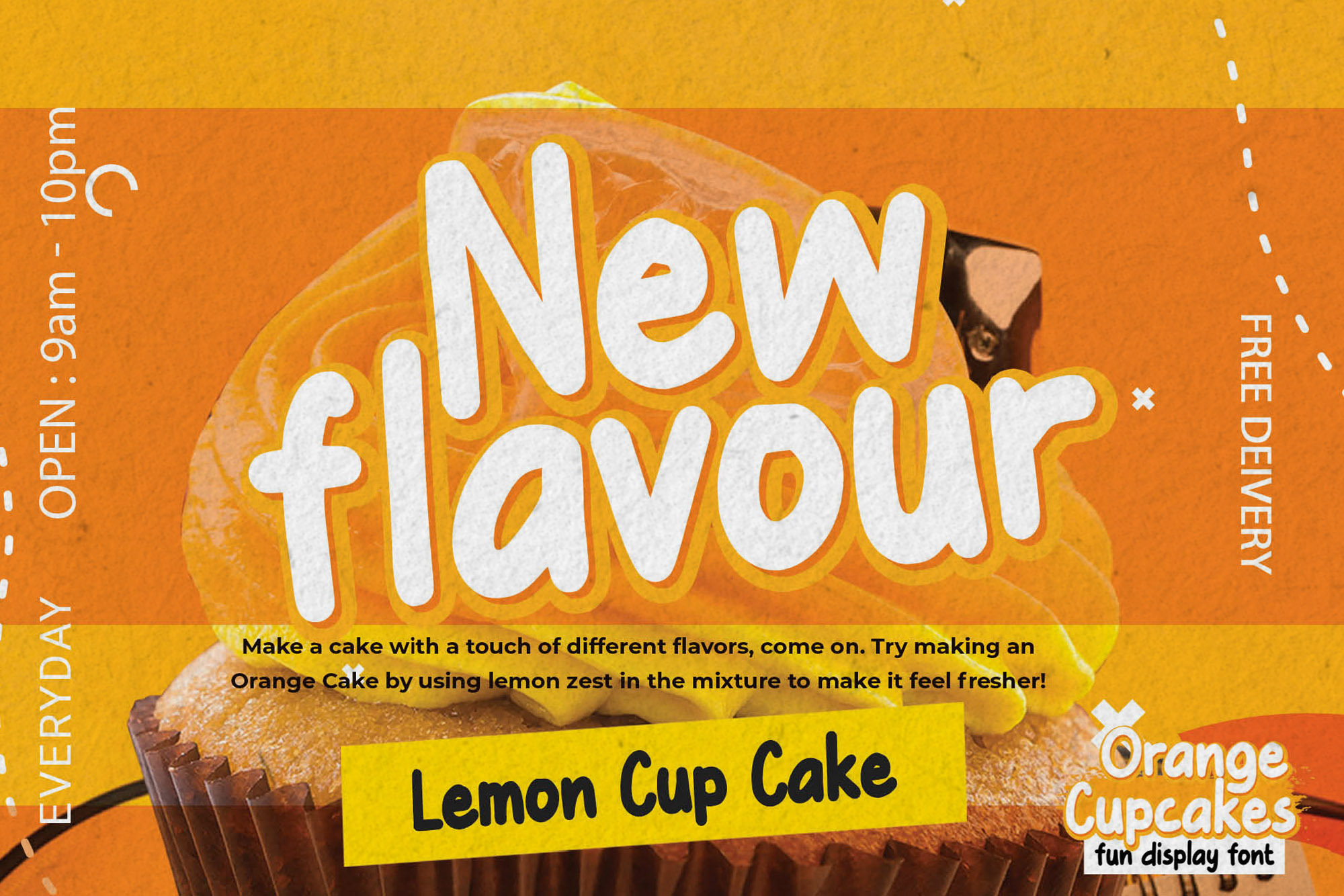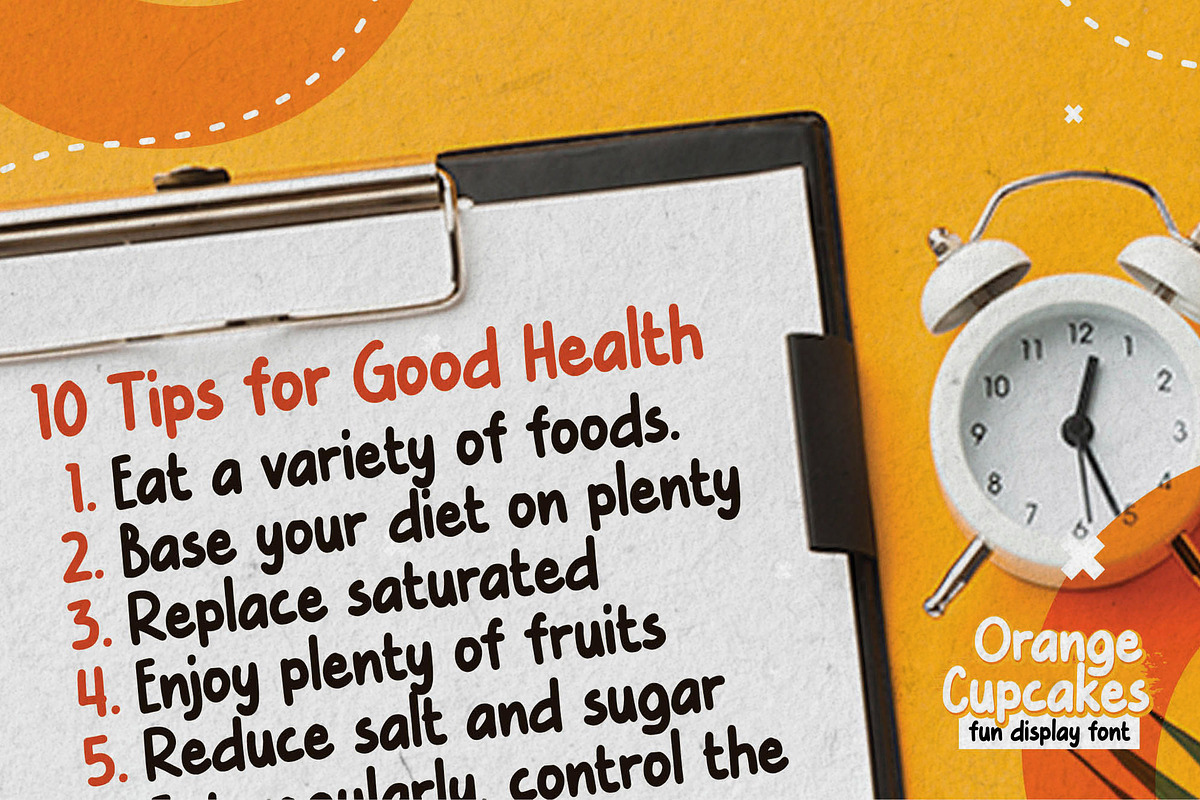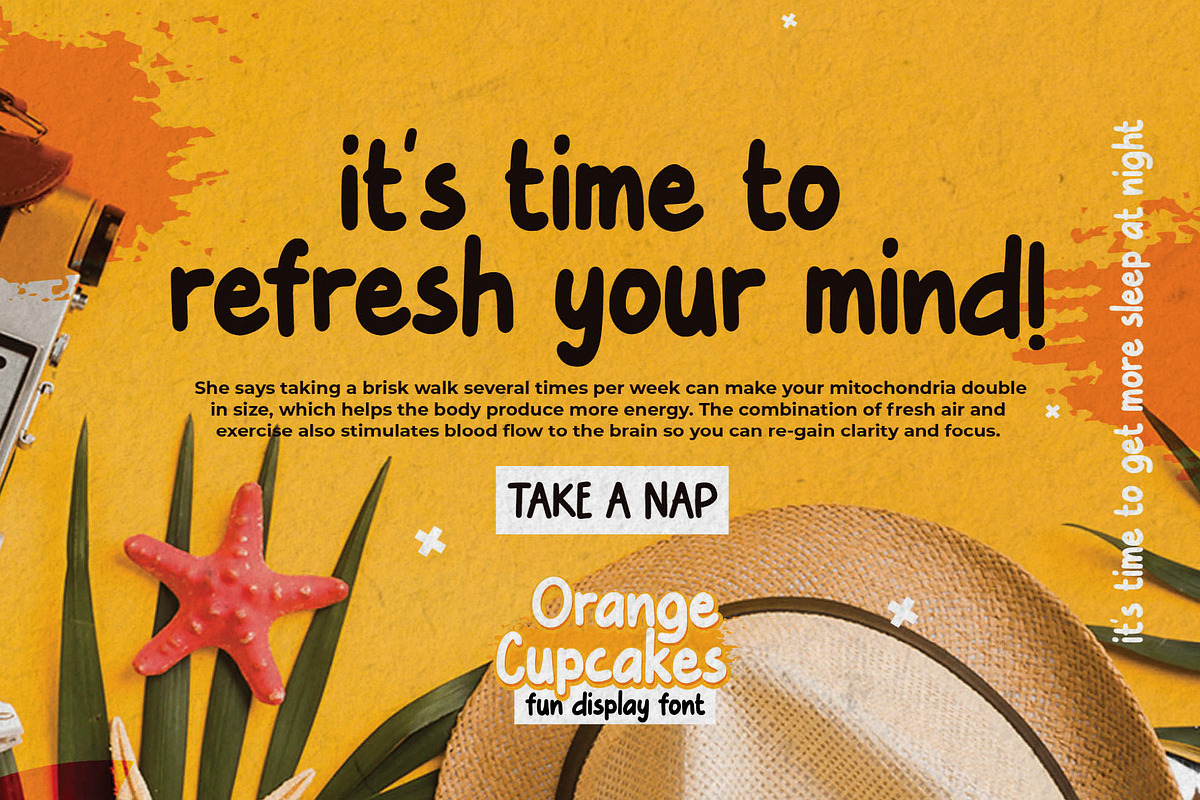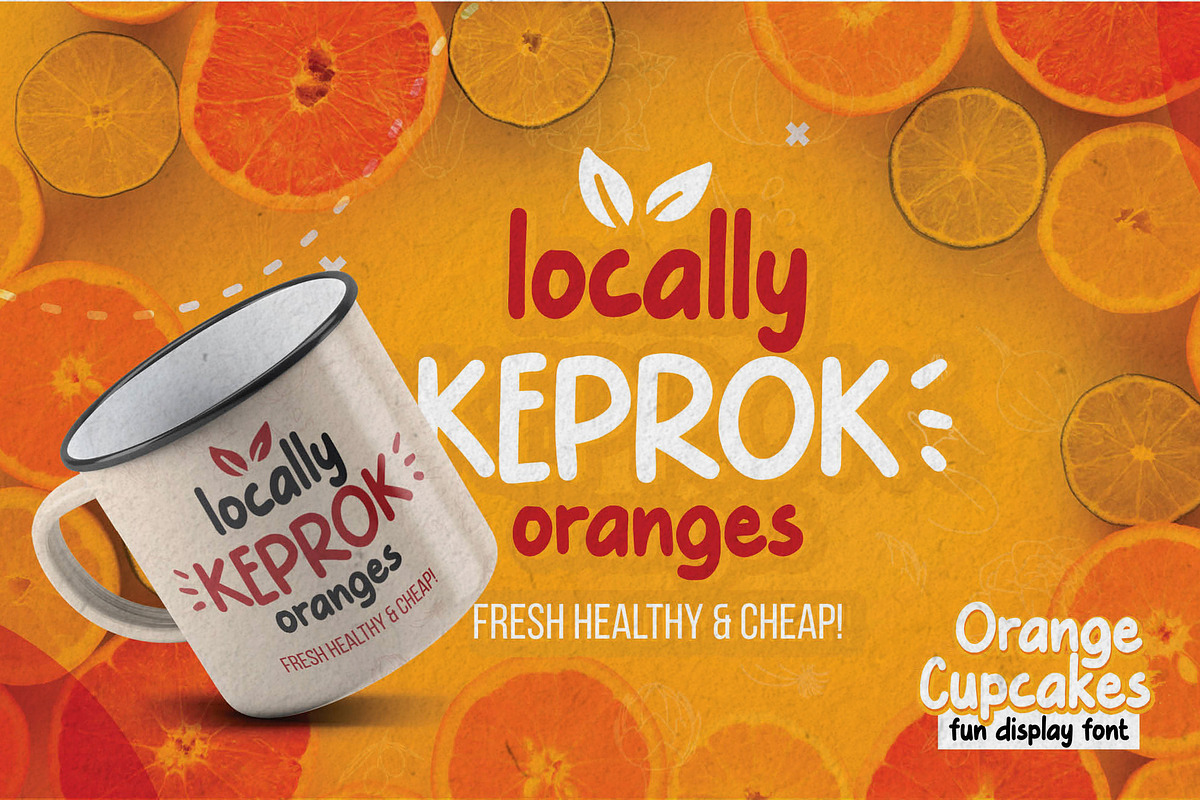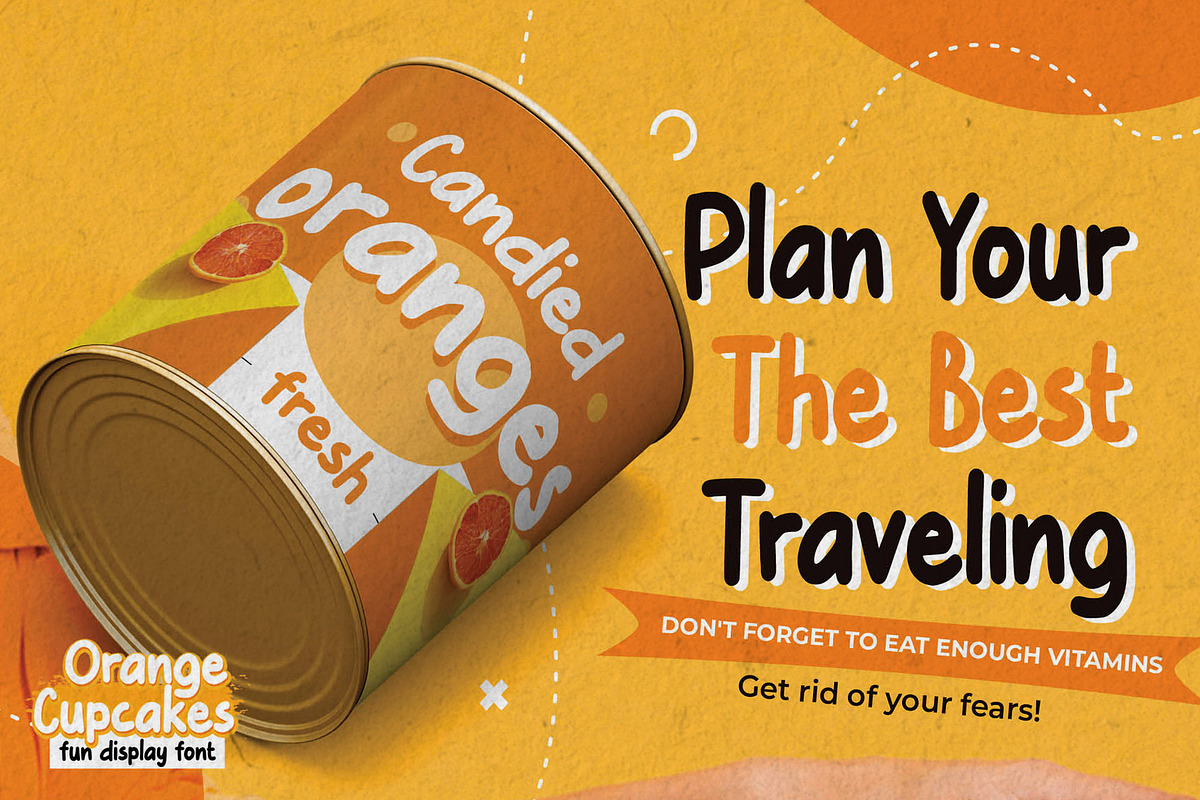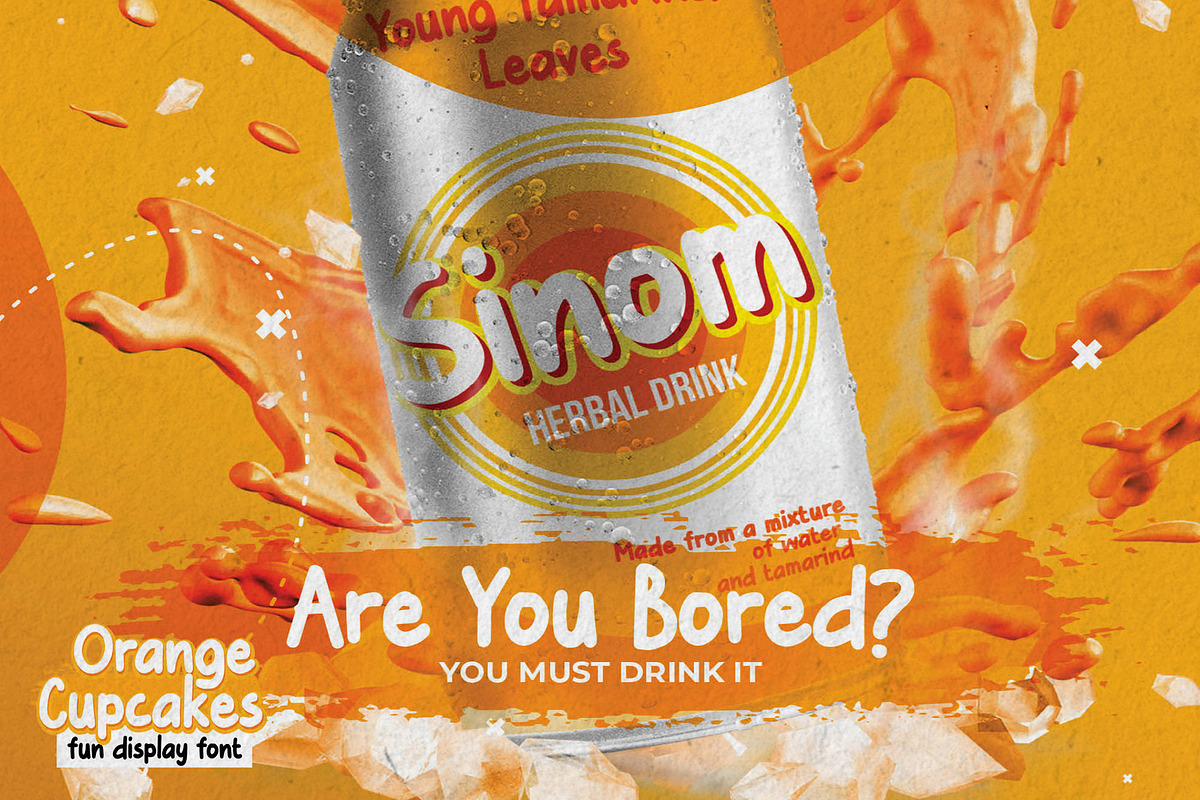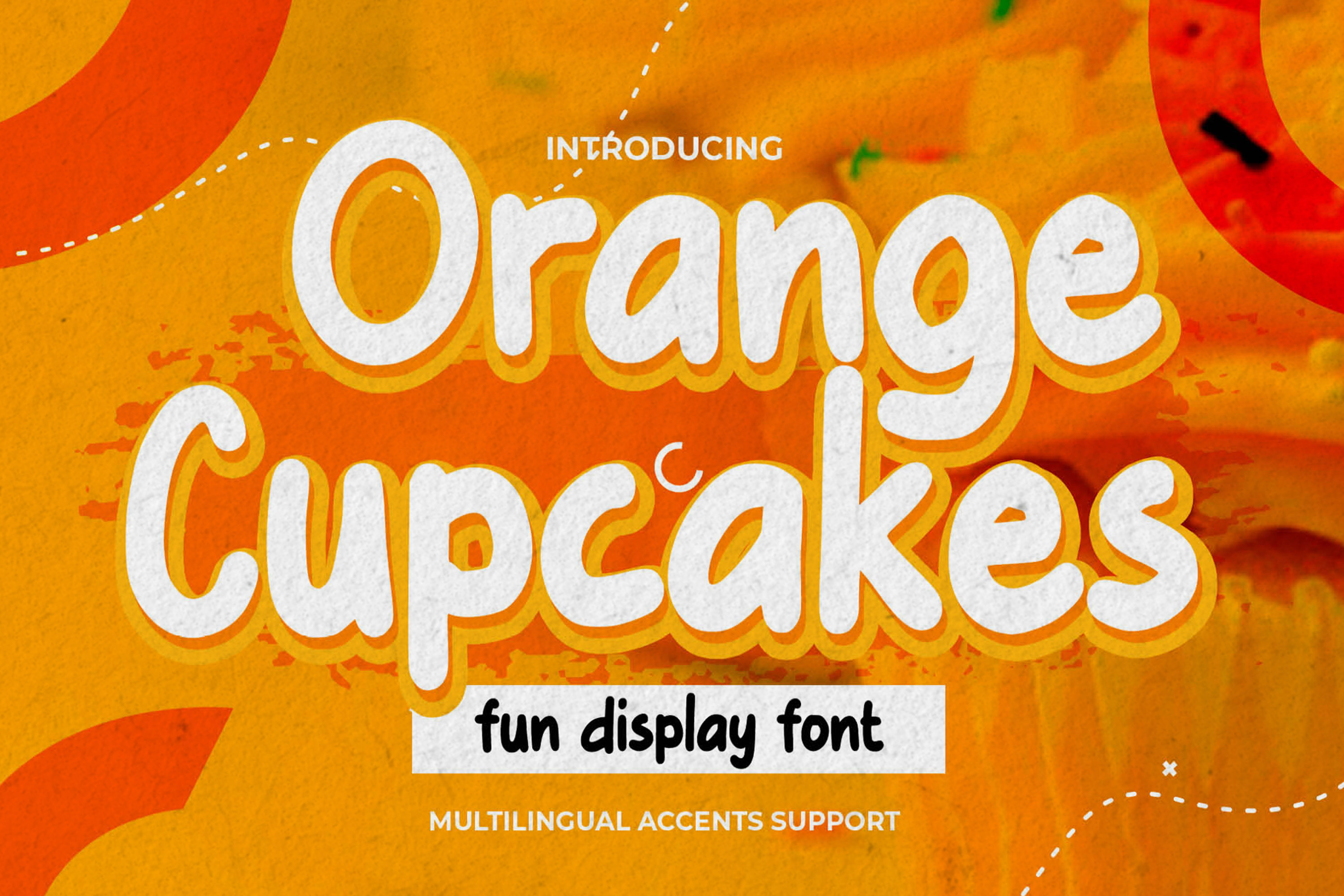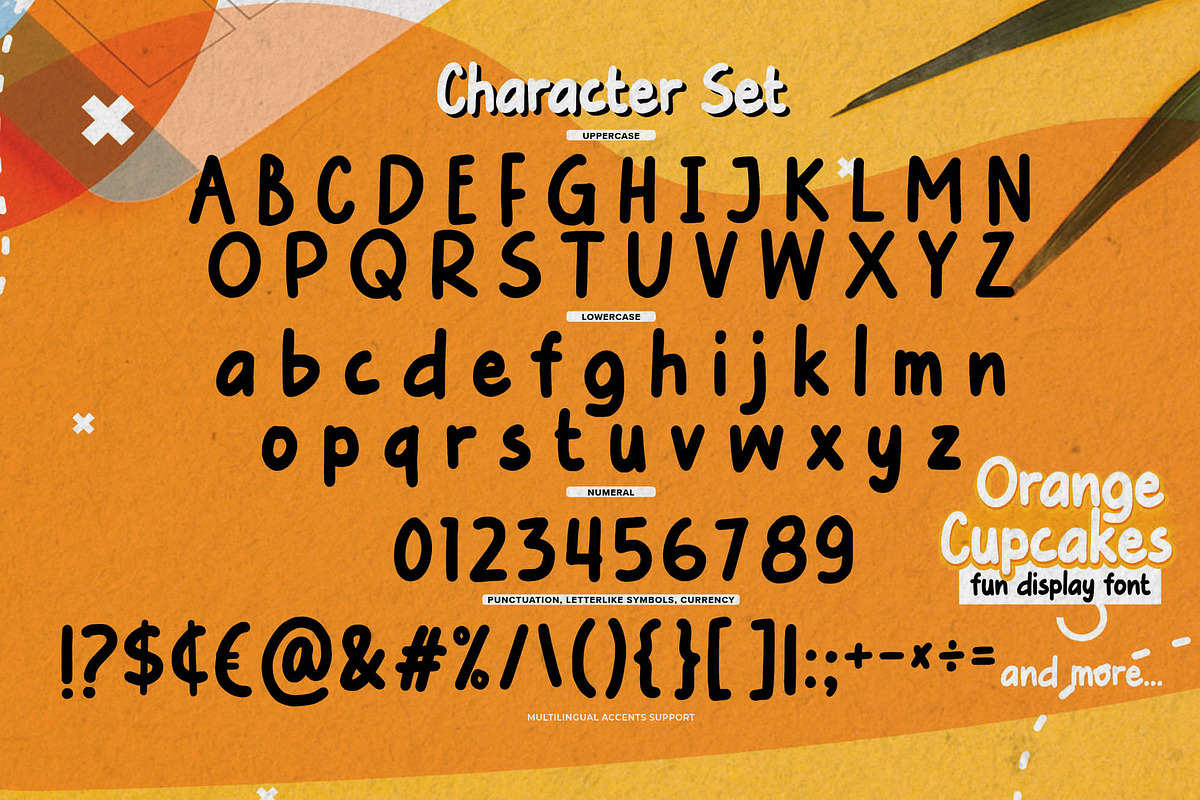
Orange Cupcakes – Fun Display Font
Orange Cupcakes is a – Cute Playful Font that will make your designs look modern, unique and fun. It’s perfect for labels, quotes, posters, DIY projects, branding, packaging, greeting cards, websites, photography overlays, signs, window art, scrapbooking, tags and so much more! A fun, playful, and cheerful display font with a sweet personality, designed to grab attention and bring warmth to your designs joyful look!